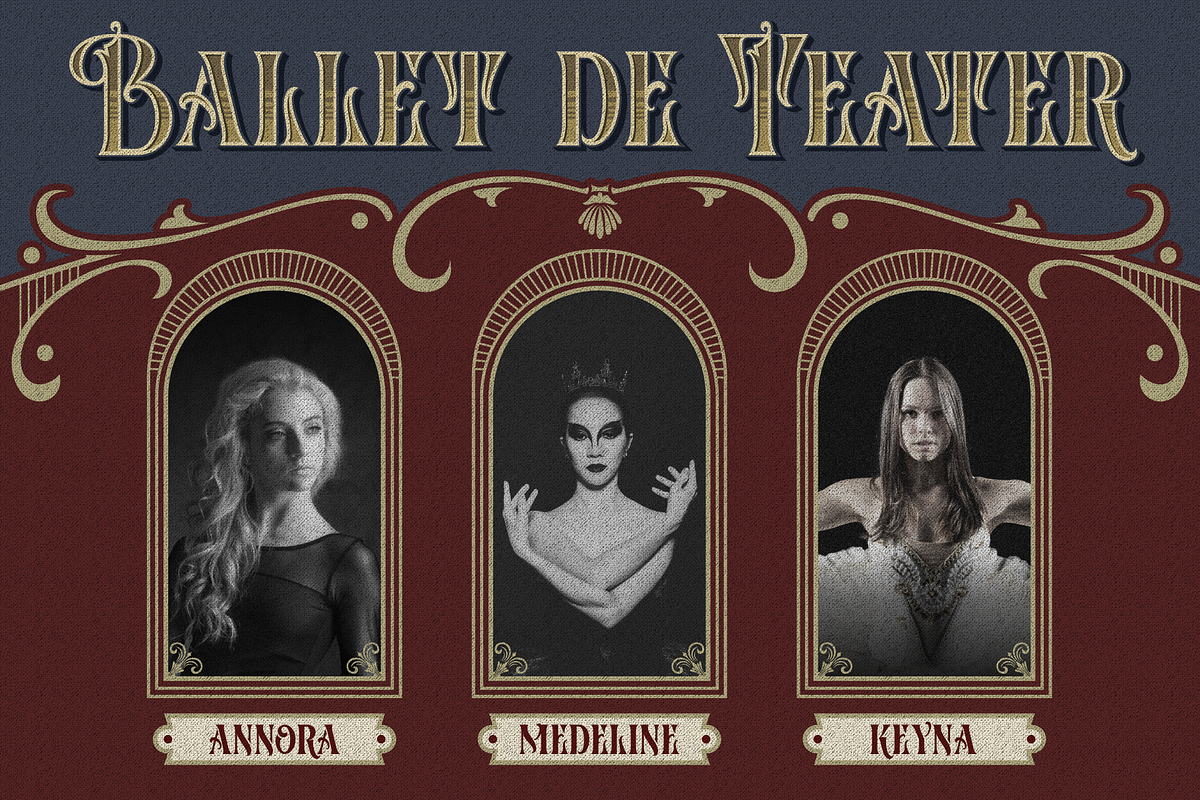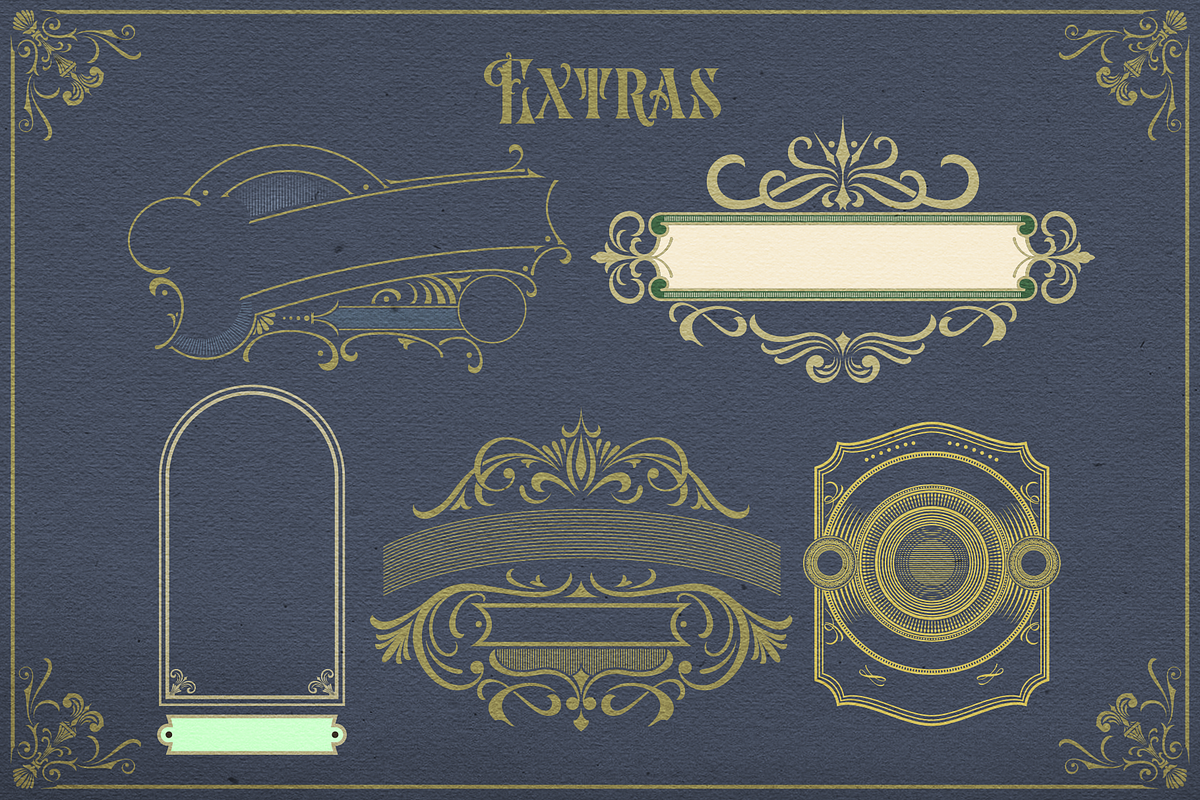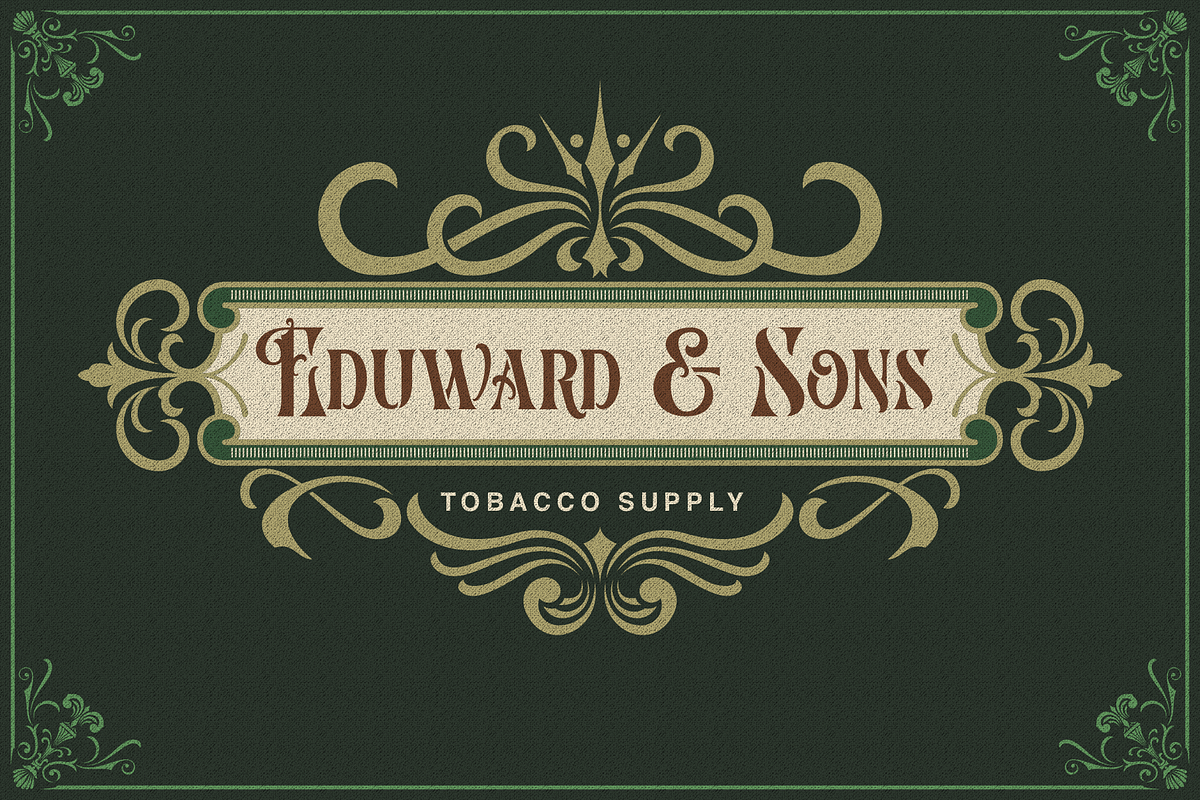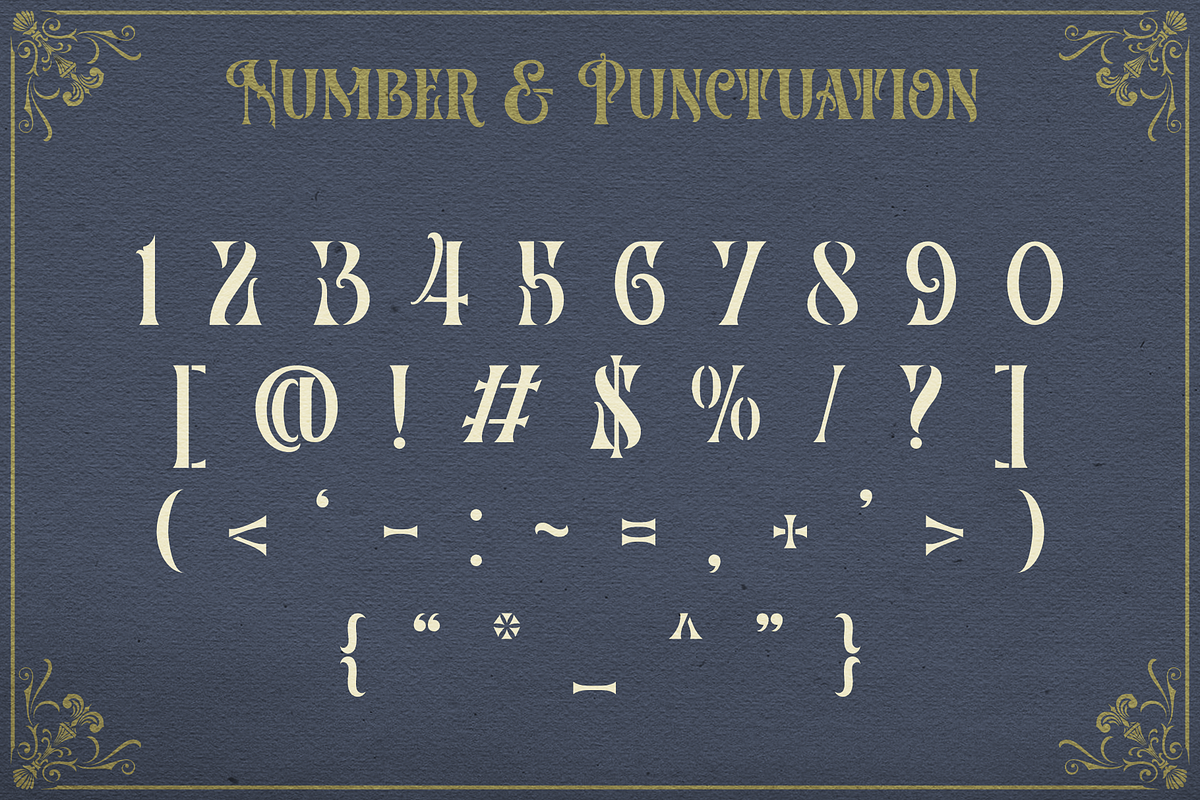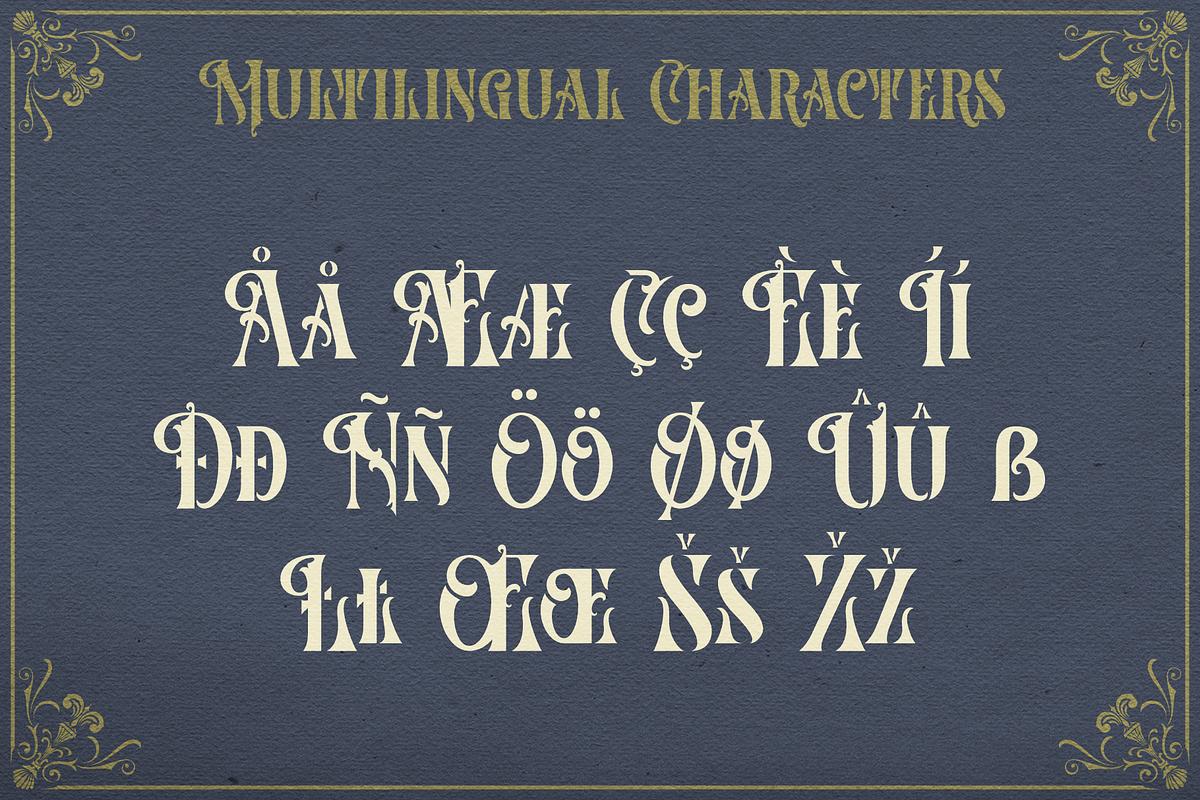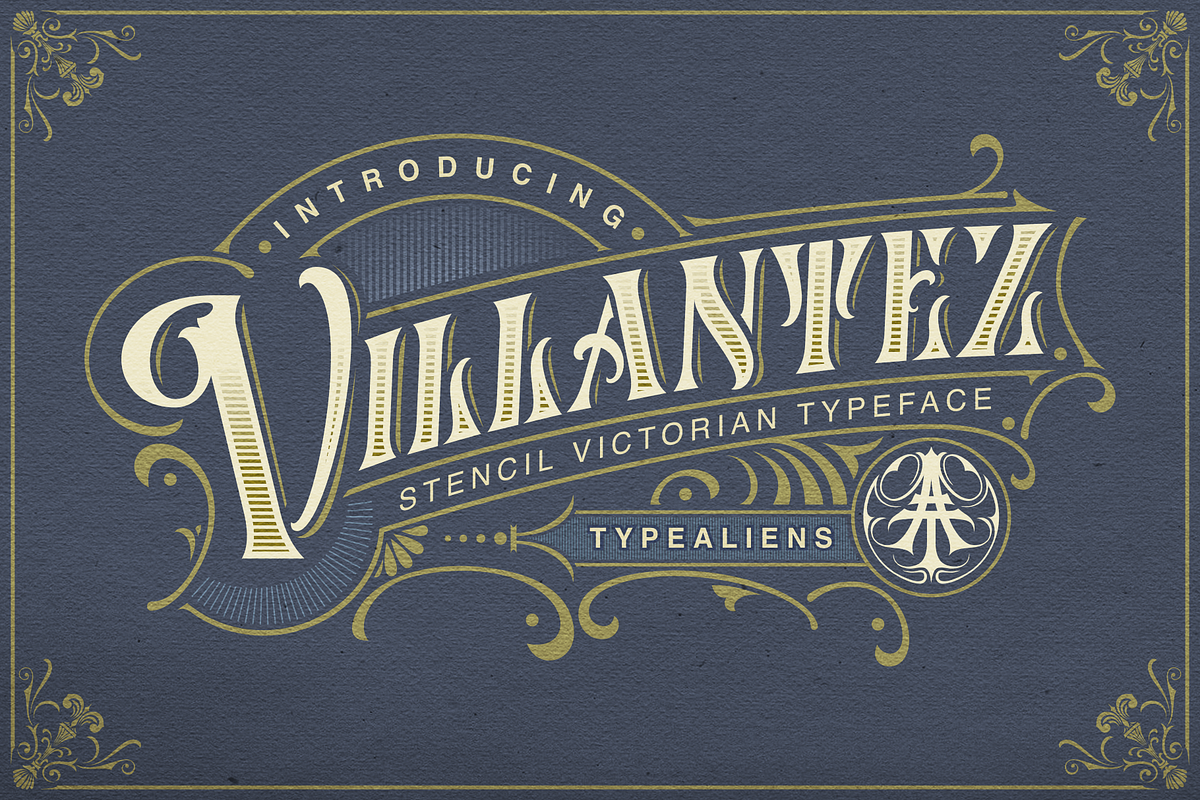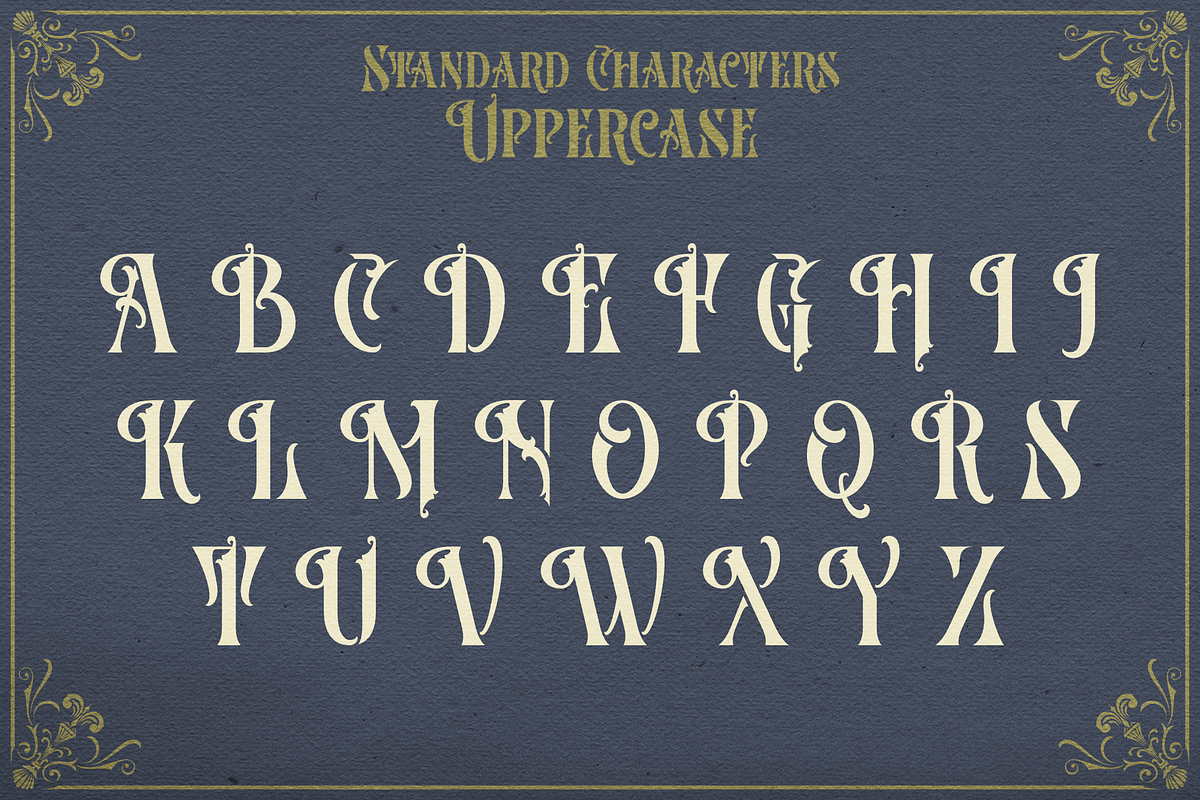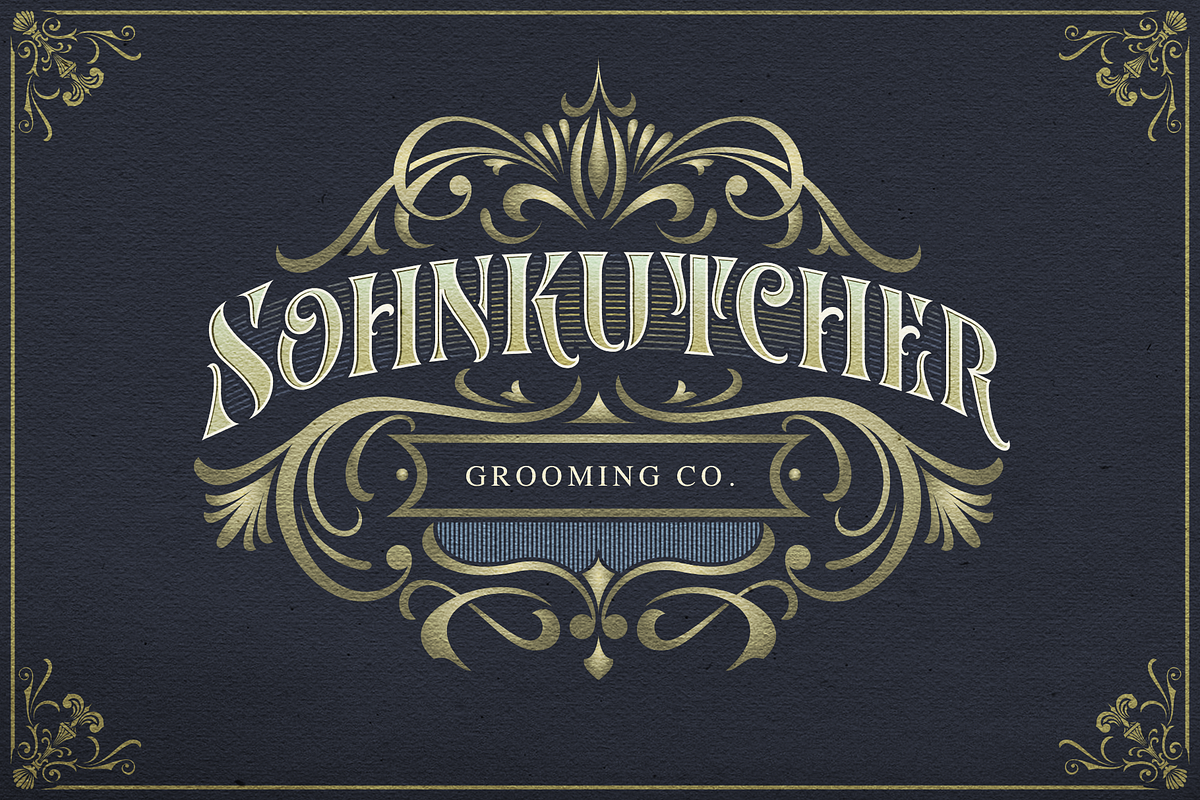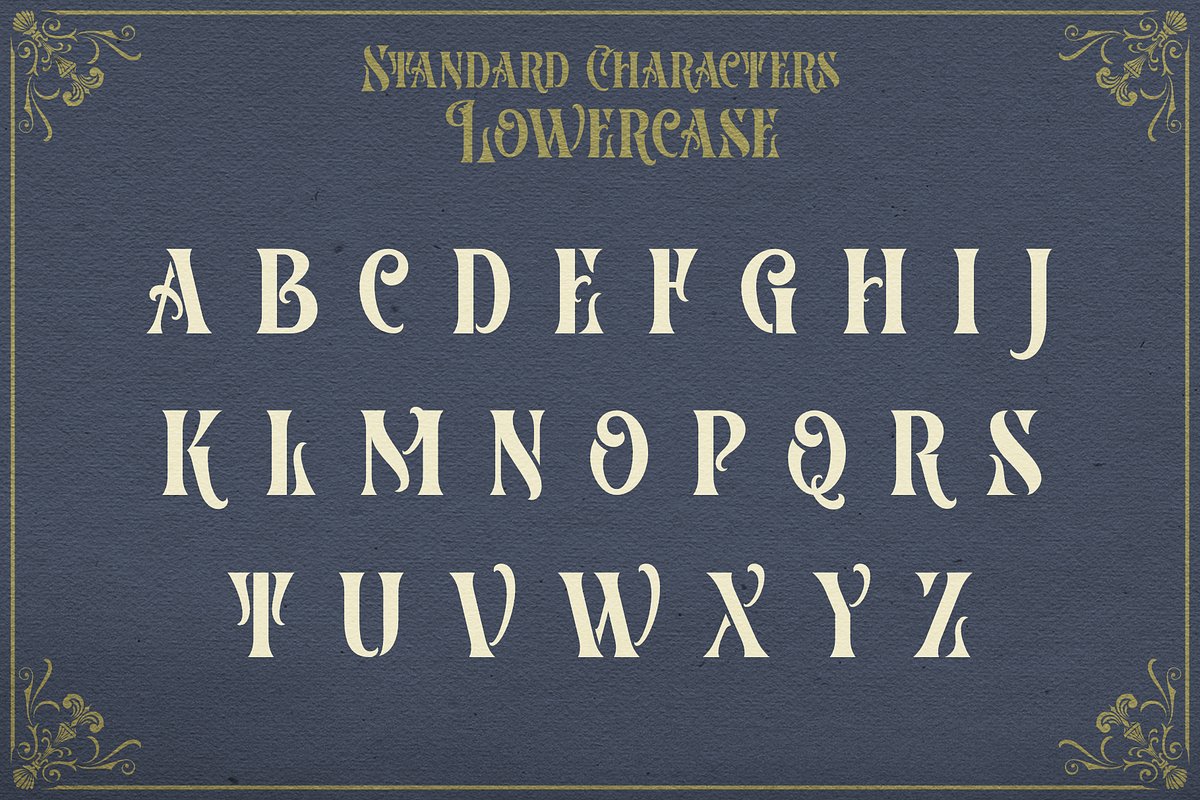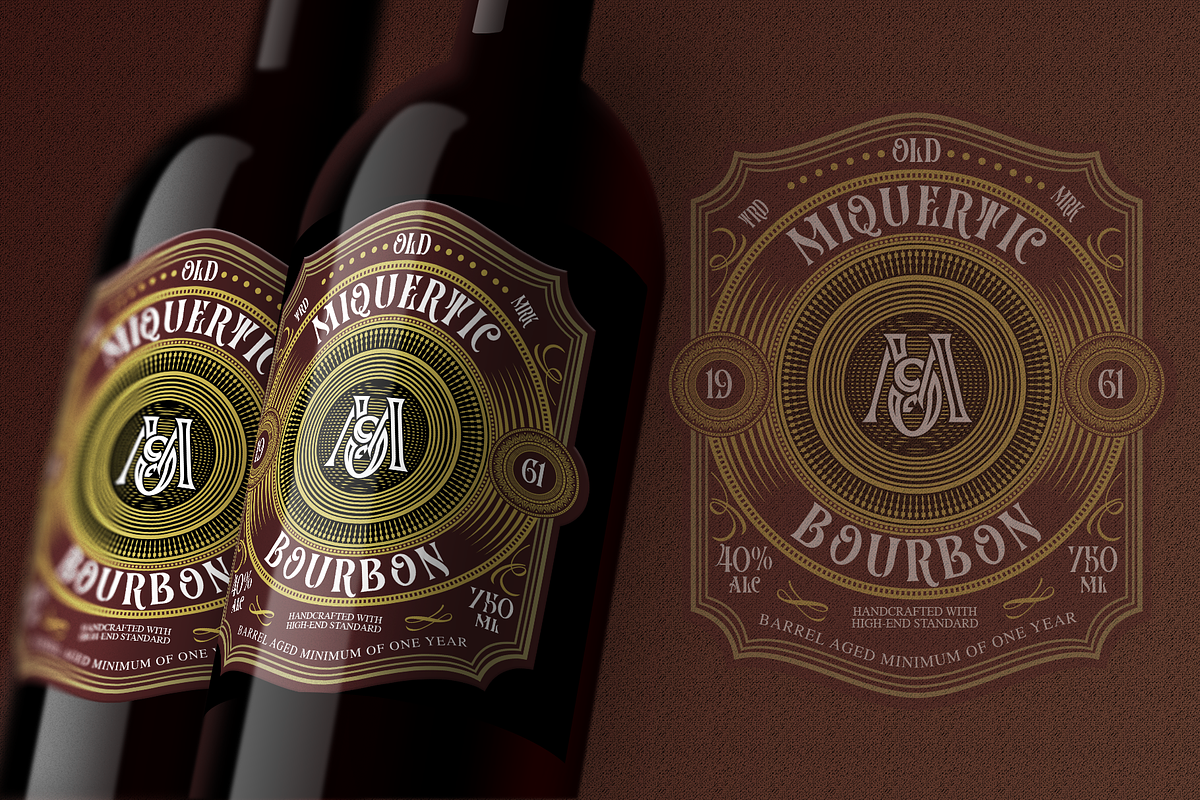
Villantez
VILLANTEZ
Villantez is a display that is basically a serif font that has been modified in such a way that there are breaks or distances at the body meeting of each letter, almost like in stencil letters. Creating a more attractive and different impression from other display serifs, this font can also be categorized in a more modern Victorian style by carrying a slight stencil modification. This font is also an all caps font with different letter and character heights in the uppercase and lowercase.